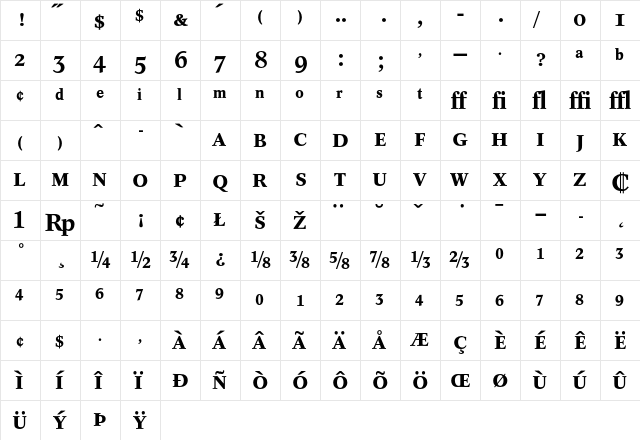
Concorde BE Medium Expert Font Preview
Concorde BE Medium Expert
Design Context for Concorde BE Typeface
Concorde BE offers clean, dependable letterforms without strong stylistic allegiance, making it a practical choice for designers who need flexibility.